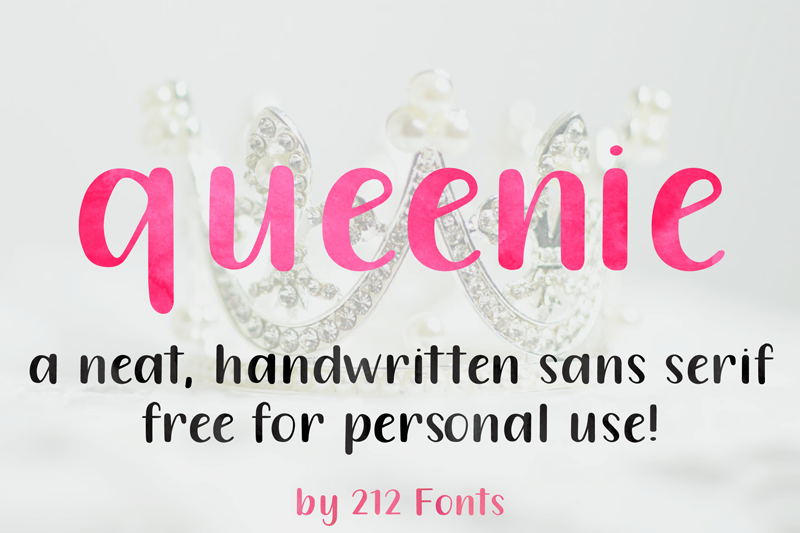
Font name: | 212 Queenie Sans |
Author: | 212 fonts |
Note by 212 fonts | |
A clean, handwritten, and feminine sans serif. Free for personal use! Purchase the beautiful Script, Serif and Sans Serif trio here: https://www.twenty3stars.com/collections/fonts-by-212-fonts Or you can buy me a latte if you feel like it so I can keep making more clean script fonts! |